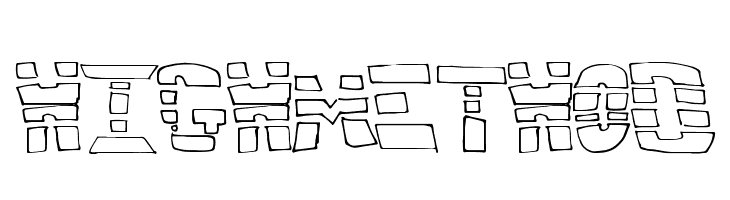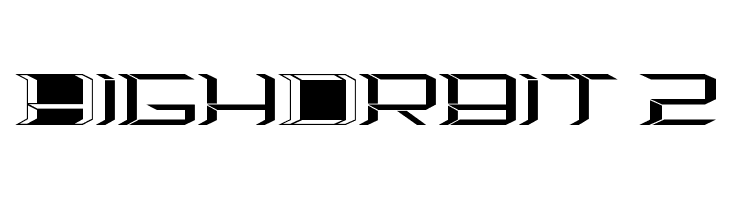
A bold, italic font with dynamic angles and a modern, energetic style.
A playful, handwritten font with dynamic strokes and an informal style.
A bold, dynamic font with angular edges and a dramatic slant.
A bold, hand-drawn font with an energetic and playful style.
A bold, angular font with a geometric style, perfect for striking headlines.
A bold, modern sans-serif font with geometric lines and strong presence.
A bold, modern font with geometric shapes and clean lines.
A modern, geometric sans-serif font with clean lines and uniform stroke width.
A bold, textured 3D font with a diagonal line pattern for a dynamic look.